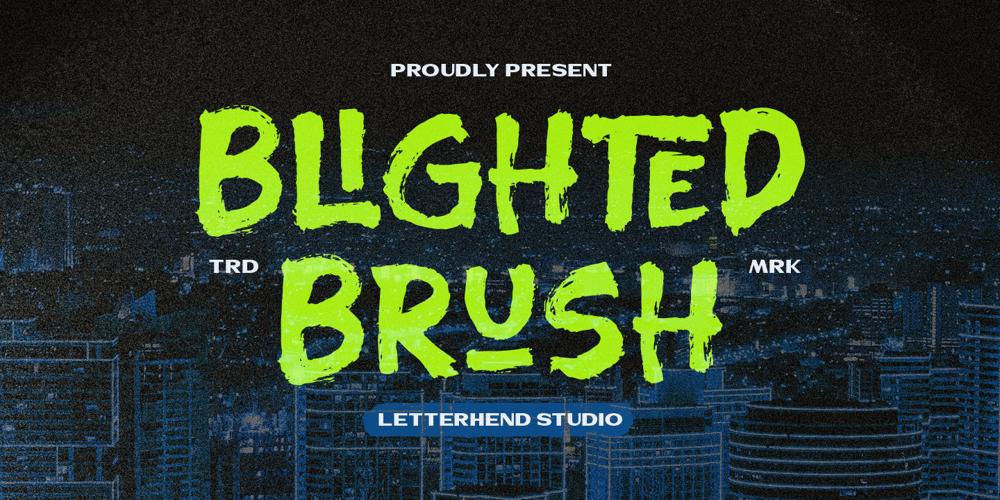
Blighted Brush
Blighted Brush font
Blighted Brush Font Family was designed by Hendry Juanda and published by Letterhend. Blighted Brush contains 1 styles and family package options. Blighted Brush is a hand drawn brush font. This font with organic freestyle textured which is purposely made for headline, display or logotype, magazines, books, greeting / wedding cards, packaging and signature which need a standout appearing. Features : Uppercase & lowercase Numbers and punctuation Alternates & Ligatures Multilingual PUA encoded We highly recommend using a program that supports OpenType features and Glyphs panels like many of Adobe apps and Corel Draw, so you can see and access all Glyph variations.